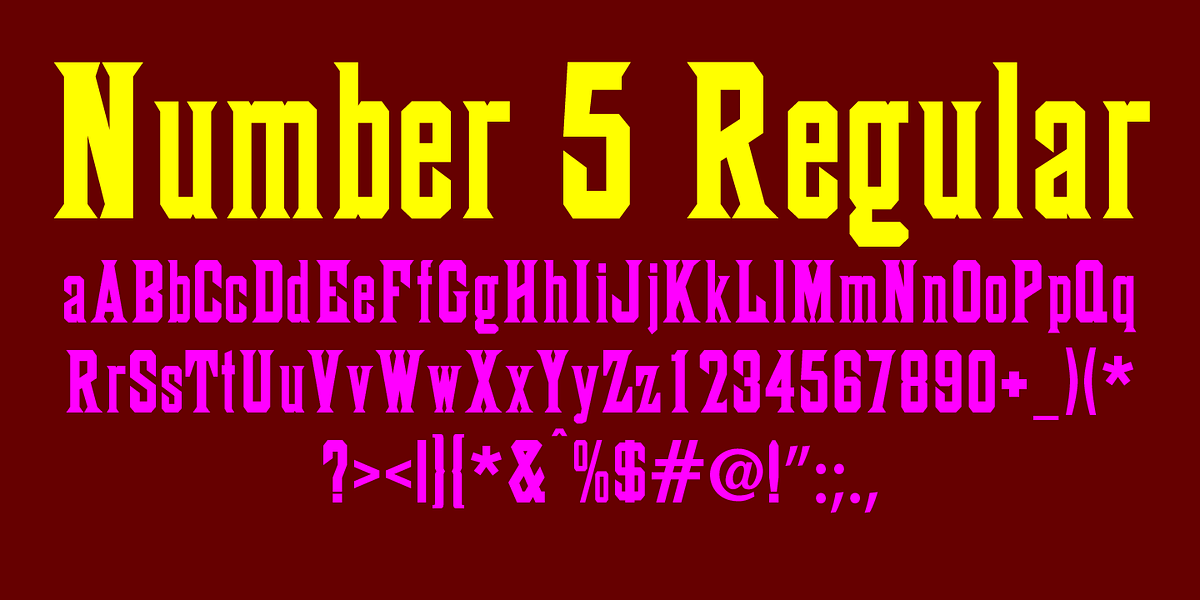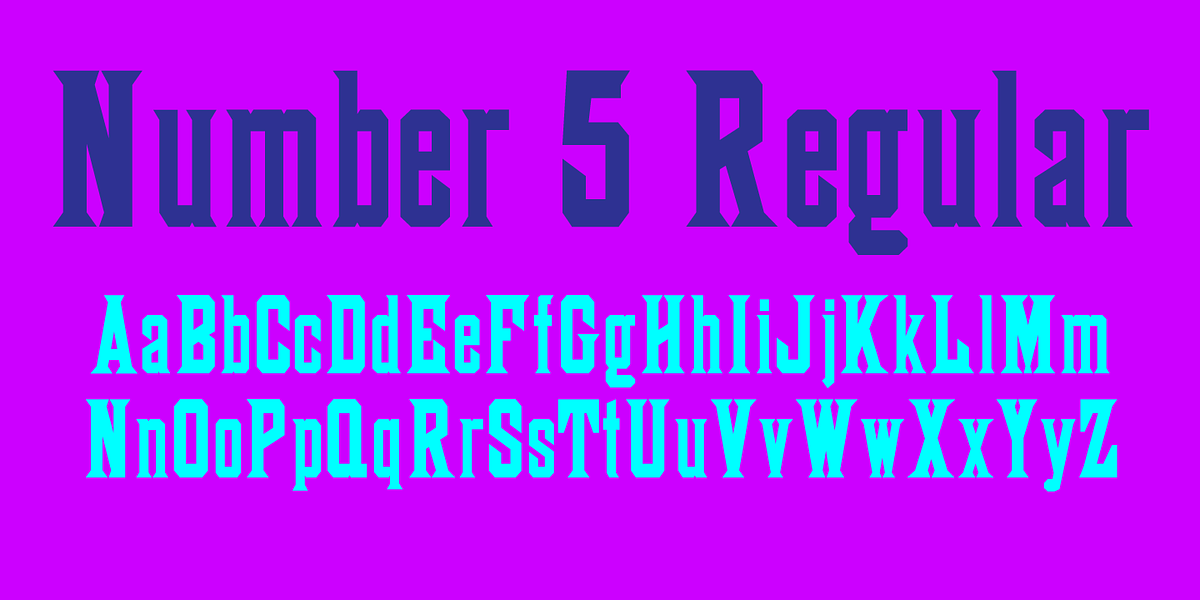
This font is a slab serif design inspired by wooden typefaces popular in the late 19th century. It features distinct angular serifs rather than the curved serifs typical of traditional serif fonts.